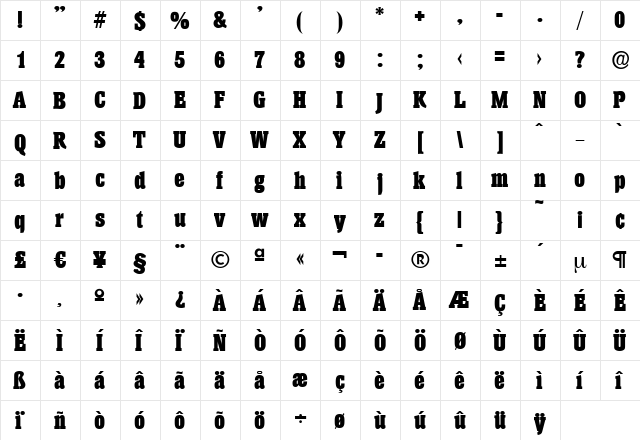
JeremyBecker-Heavy Regular Font Preview
JeremyBecker-Heavy Regular
Design Context for JeremyBecker-Heavy Typeface
JeremyBecker-Heavy offers clean, dependable letterforms without strong stylistic allegiance, making it a practical choice for designers who need flexibility.